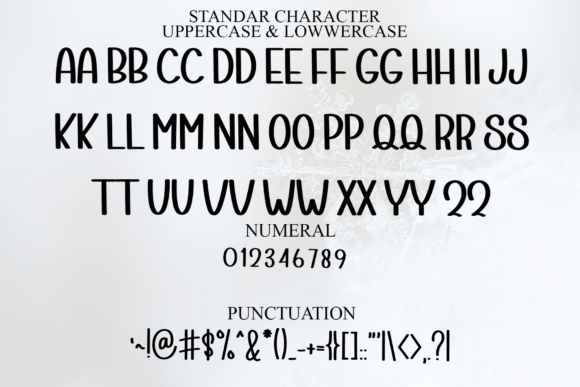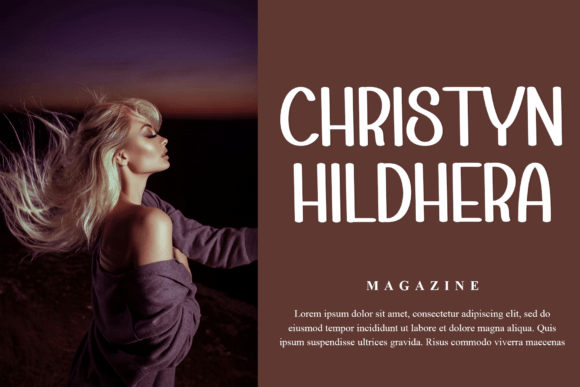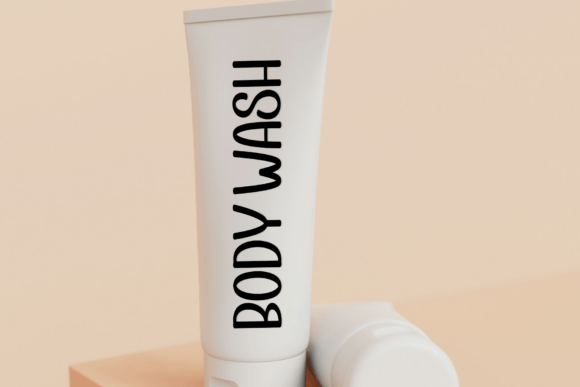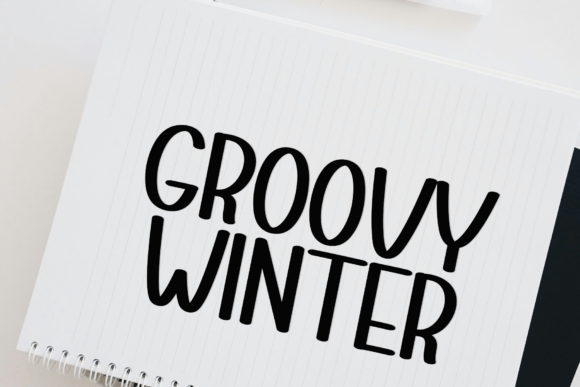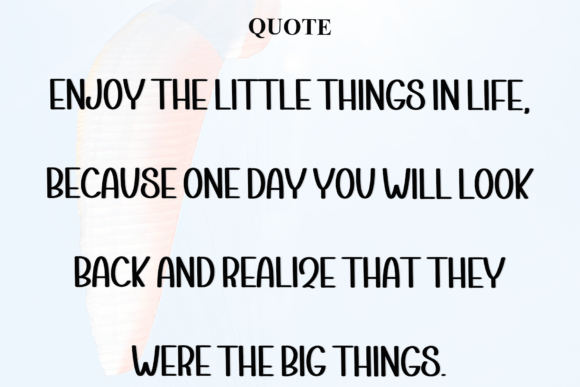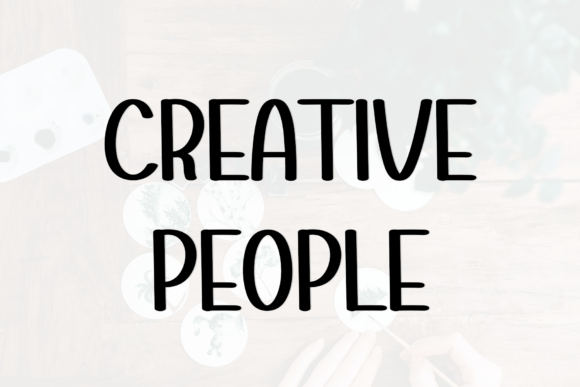
Introduction to Ideology Font
Have you ever stumbled upon a design that immediately makes you feel at ease? Perhaps it’s a social media post with a quirky, handwritten font that makes you smile. That’s exactly what the Ideology Font is all about – creating a sense of warmth and friendliness in your designs. Its playful, round strokes are perfect for personal projects, invitations, and graphics that need a touch of whimsy.
- Designed with a unique aesthetic, making it perfect for projects that require a distinct look
- Perfect for designers and artists working on creative projects that require a high level of visual sophistication
Honest Review: Ideology Font
I recently had the chance to try out the Ideology Font, and I must say, it’s a solid addition to any designer’s toolkit. This font is perfect for creative projects that require a modern, edgy feel.
- ✨ High-quality design: The Ideology Font boasts crisp, clear lines and a clean aesthetic that’s perfect for both digital and print projects.
- ✨ Versatile: This font is great for a wide range of applications, from logos and branding to web design and editorial content.
- ⚠️ Limited character set: While the Ideology Font is a great addition to any designer’s toolkit, its character set is somewhat limited, which may make it less suitable for longer blocks of text.
Overall, I’m impressed with the Ideology Font. While it may not be perfect, its strengths far outweigh its limitations. If you’re looking for a high-quality design resource for your next creative project, the Ideology Font is definitely worth checking out.
The Ideology Font is suitable for a wide range of creative projects, including social media graphics, presentations, posters, and documents. Its high-quality design and transparent background feature make it an ideal choice for designers and non-designers alike.